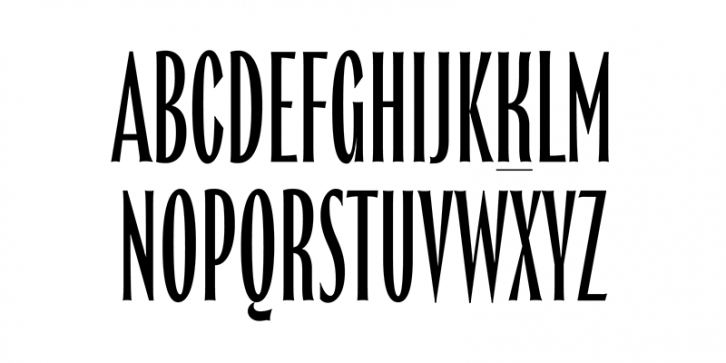
Thrillers is a typeface that evoques the visual landscape of Crime Novel Titles. This high contrast super condensed semi-serif design comprises 6 weights that provide you with a ton of options for your Headlines, Titles and Branding. Because of its minimal white space it is very punchy and its unusual texture captures our attention.